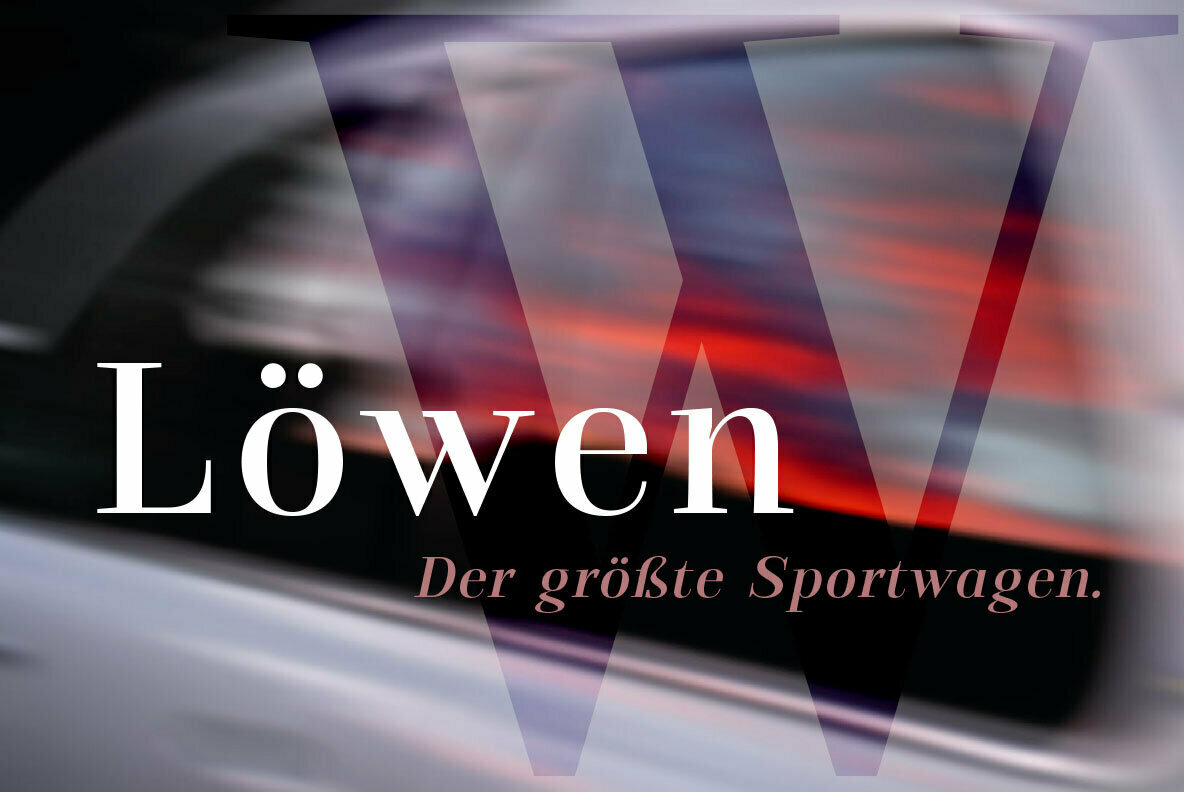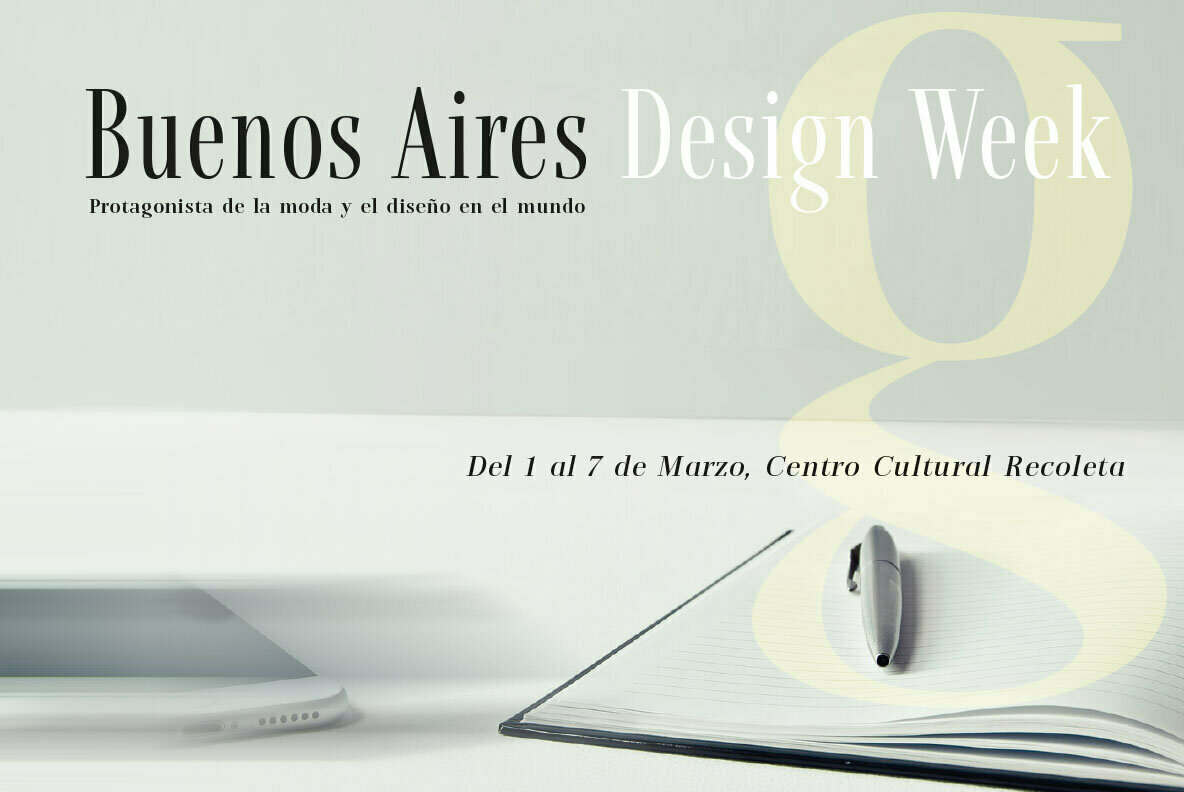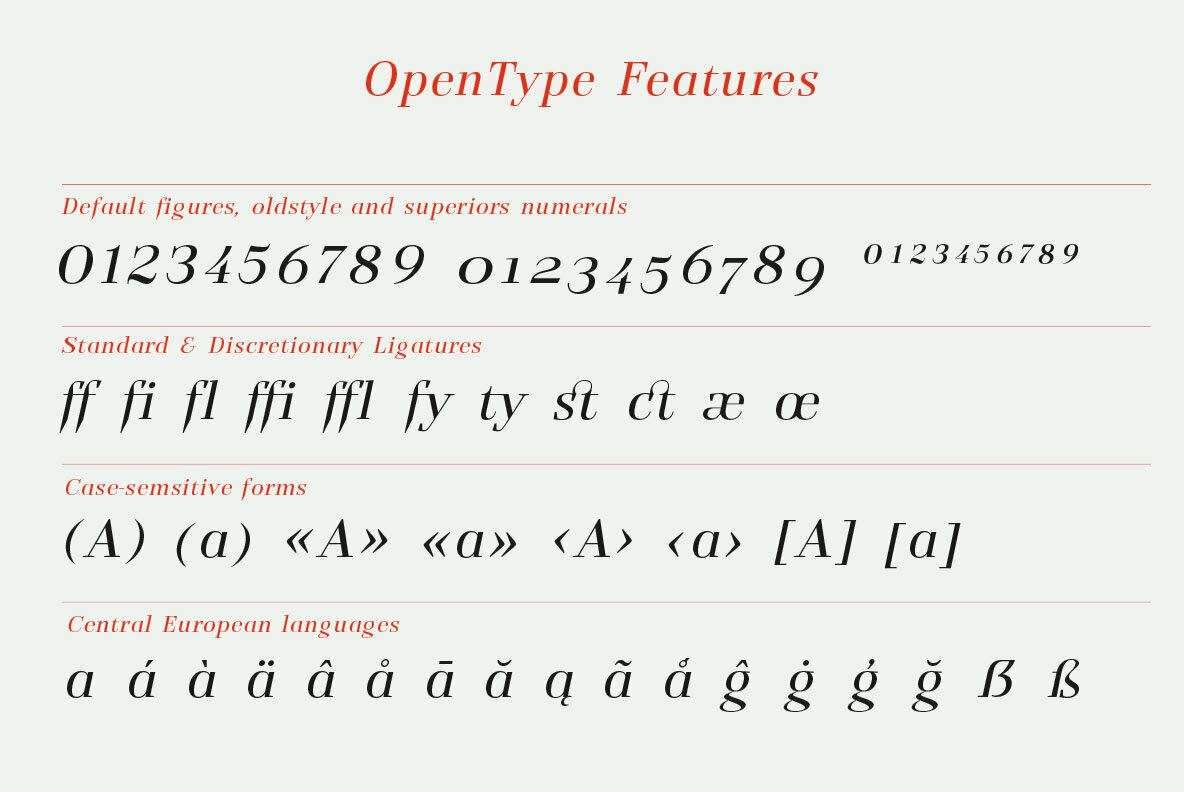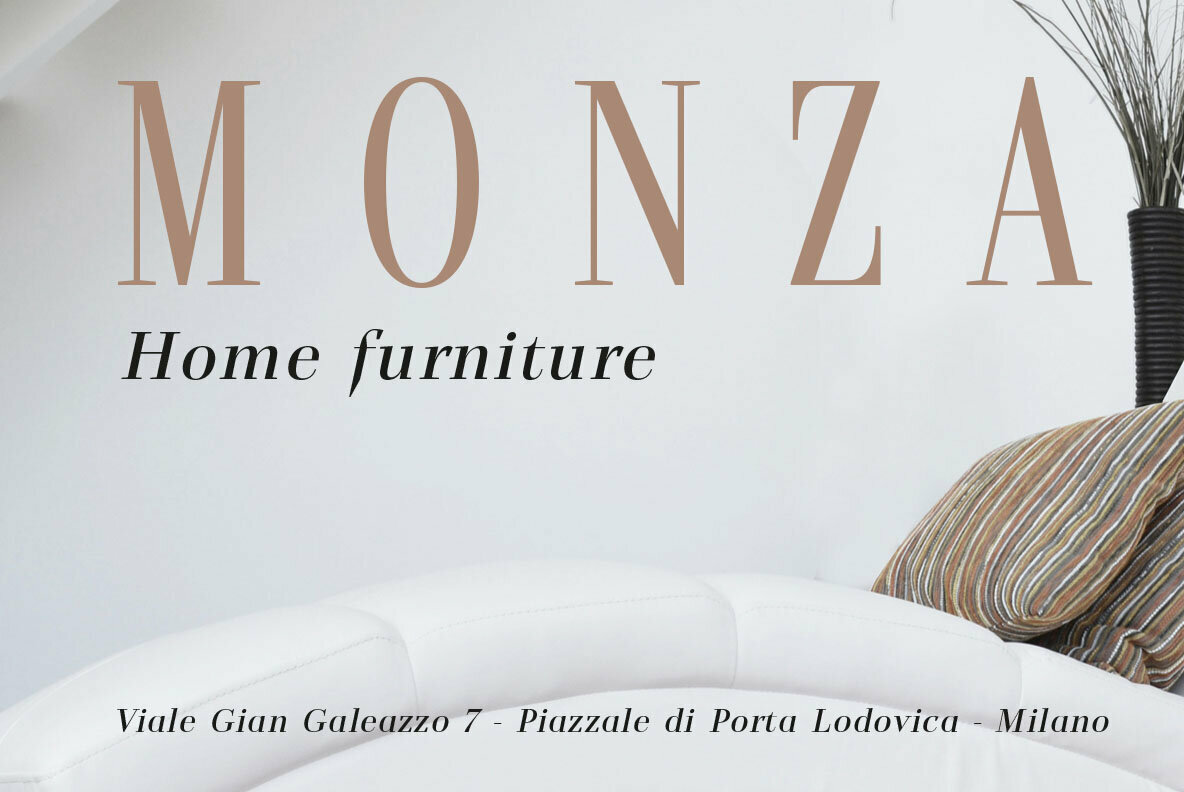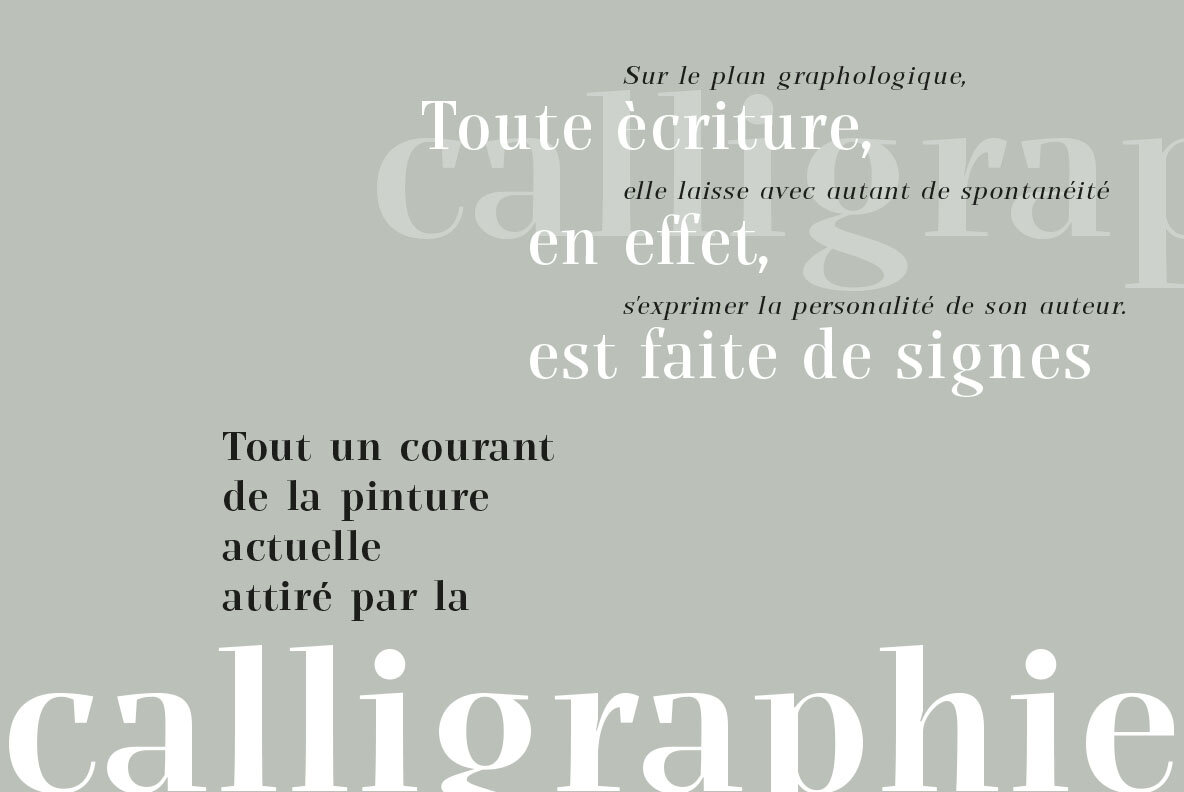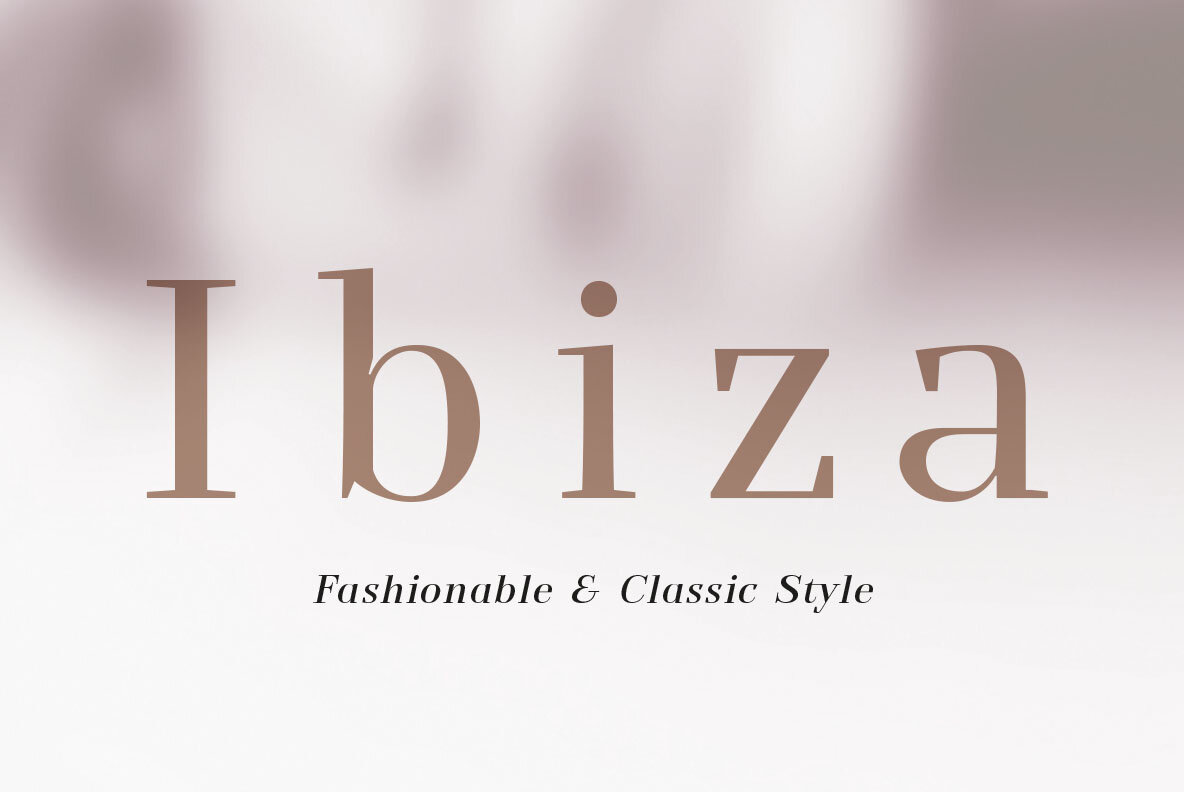
Fortezza Font
Fortezza is a family of fonts inspired by the great masters who have created the Modern Roman style: Firmin Didot (1764 -1836) and Giambattista Bodoni (1740 -1813)
Both typefaces can be similar, but a trained and close vision, show clear differences in the final result, like its weight and the degree of transition of the strokes. The type of Didot suggests greater warmth and elegance, they are characterized by extreme contrast in thick strokes and thin strokes, by the use of serifs very thin and by the vertical stress of the letters. while the Bodoni type conveys a greater robustness and hardness.
Fortezza brings together the elegance and spirit of both types, but proposes a contemporary vision, establishing a distance with certain features typical of the baroque that was manifested at that time.
Designer: Olcar Alcaide